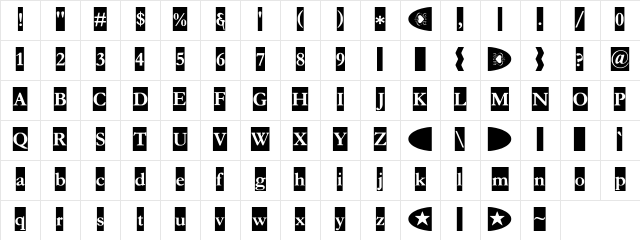
Crayomonde Regular
Design Context for Crayomonde
Crayomonde is a composed and adaptable typeface that performs quietly and consistently across a wide range of design contexts.